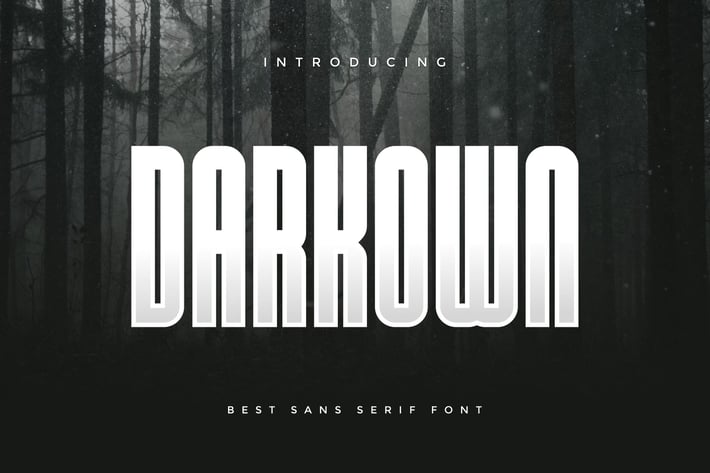
Darkown - Modern Sans Serif Font
Introducing our new product Darkown - Modern Sans Serif Font
Darkown is a bold, modern display font with playful flair, ideal for attention-grabbing headlines, logos, and diverse design projects. Versatile and readable in both digital and print, Darkown adds a dynamic touch to your message.